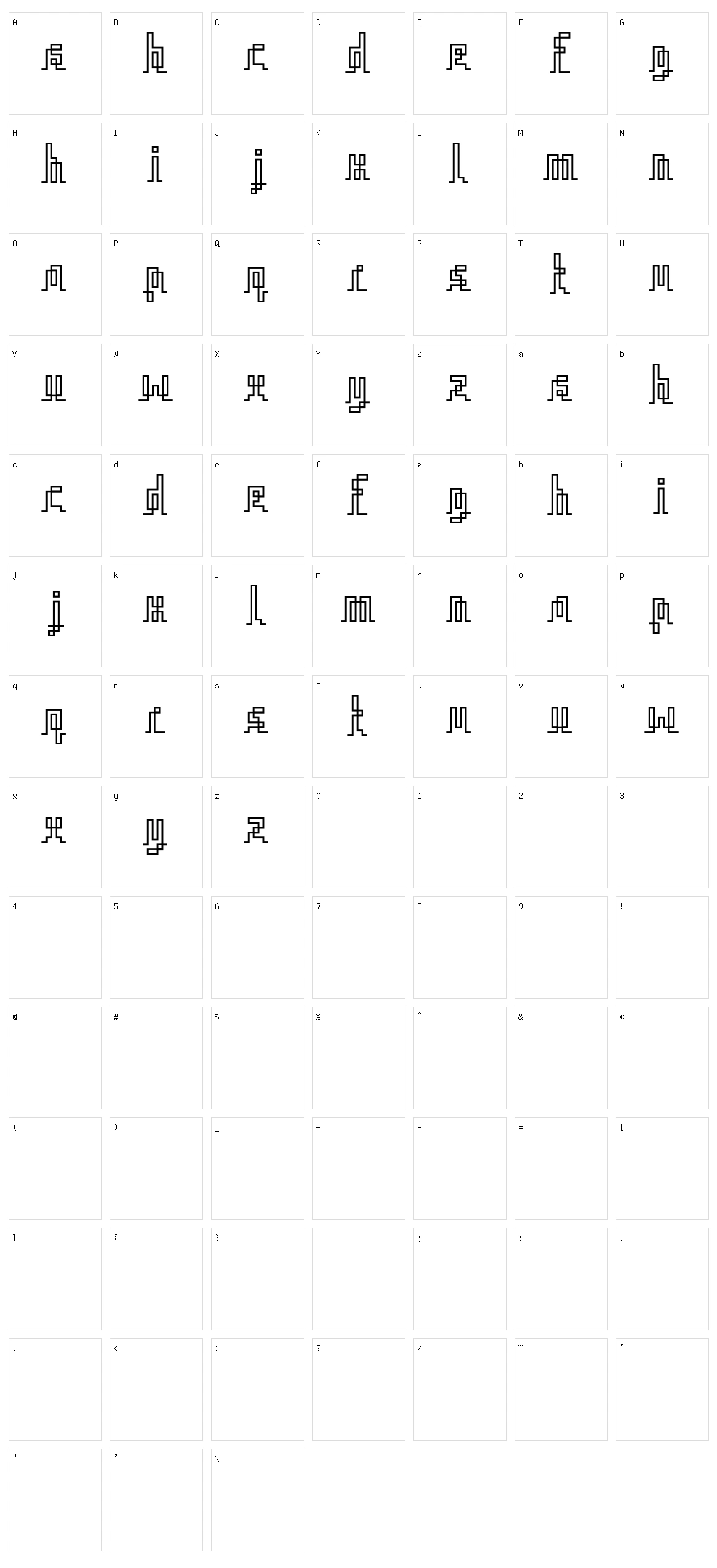
The free font Iqq is carefully designed by kwtk, showcasing a thoughtful balance of creativity and usability and falls under the Square font style. When you download the ZIP file, it contains only 8.54 KB of font files, making it lightweight and quick to download. Please review the license details below to understand permitted usage and distribution rights. If license information is not available, we recommend using this font for personal projects only or contacting the author directly for commercial usage permissions.